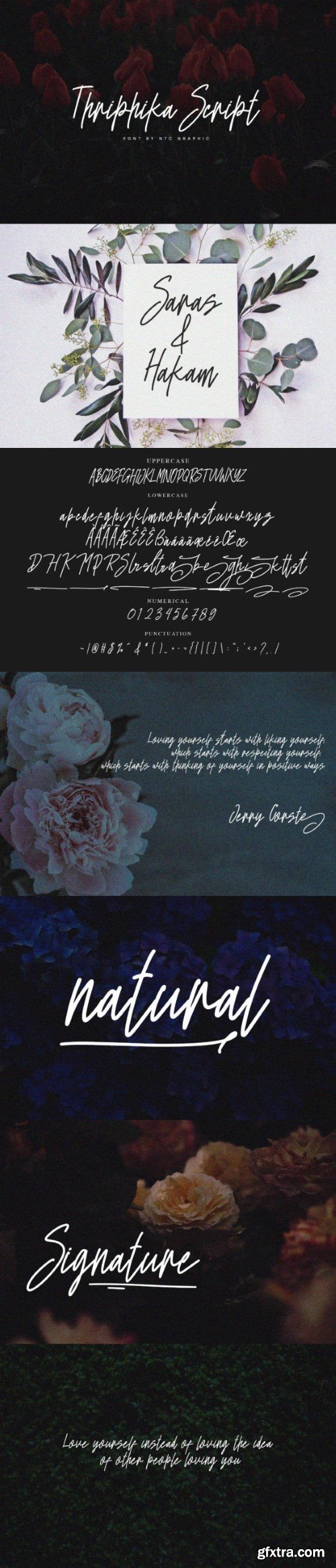
thrivepika script 字体
Thriphika Script is a beautiful script font with clean signature handwritten style. It can be applied to support the graphic appearance of the product to be more attractive and unique. This font is suitable for making previews and covers, wedding invitations, logo designs, shirt designs, and other feminine graphic needs.